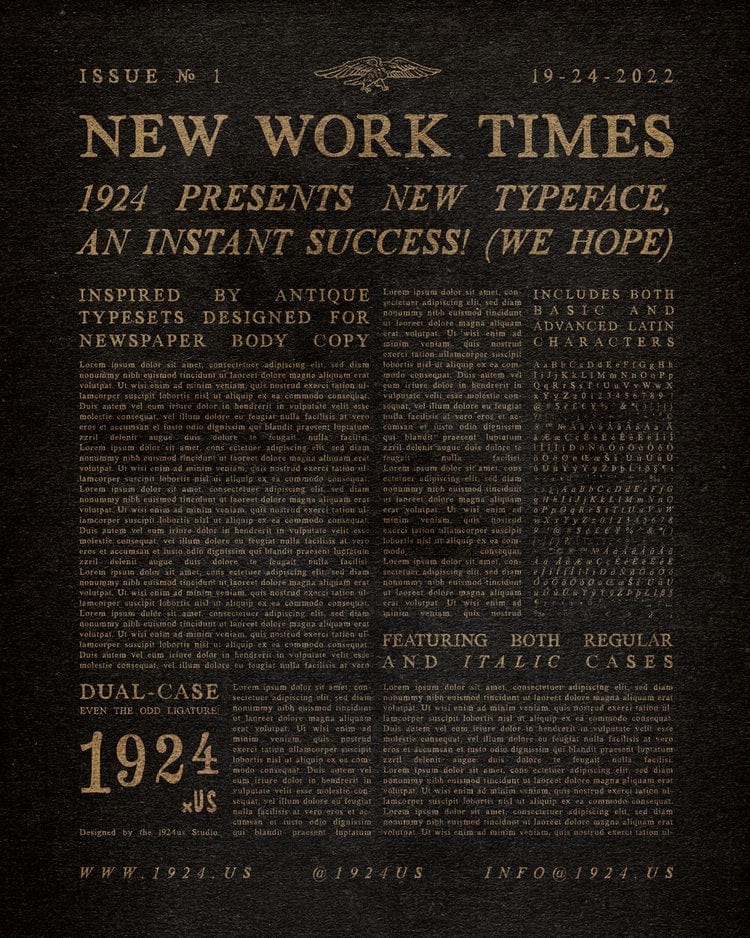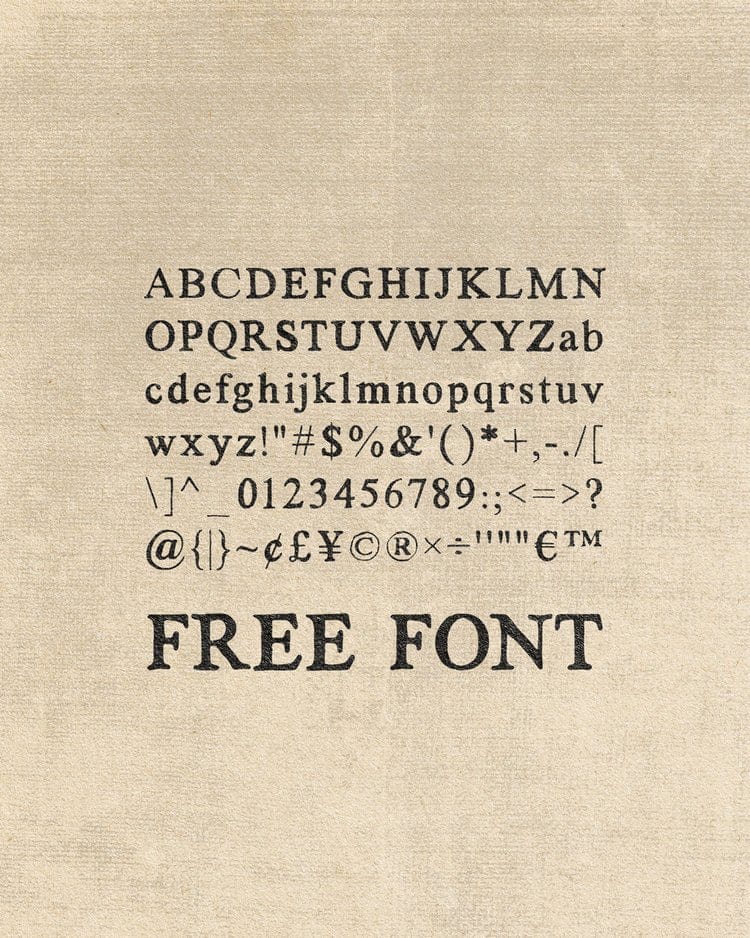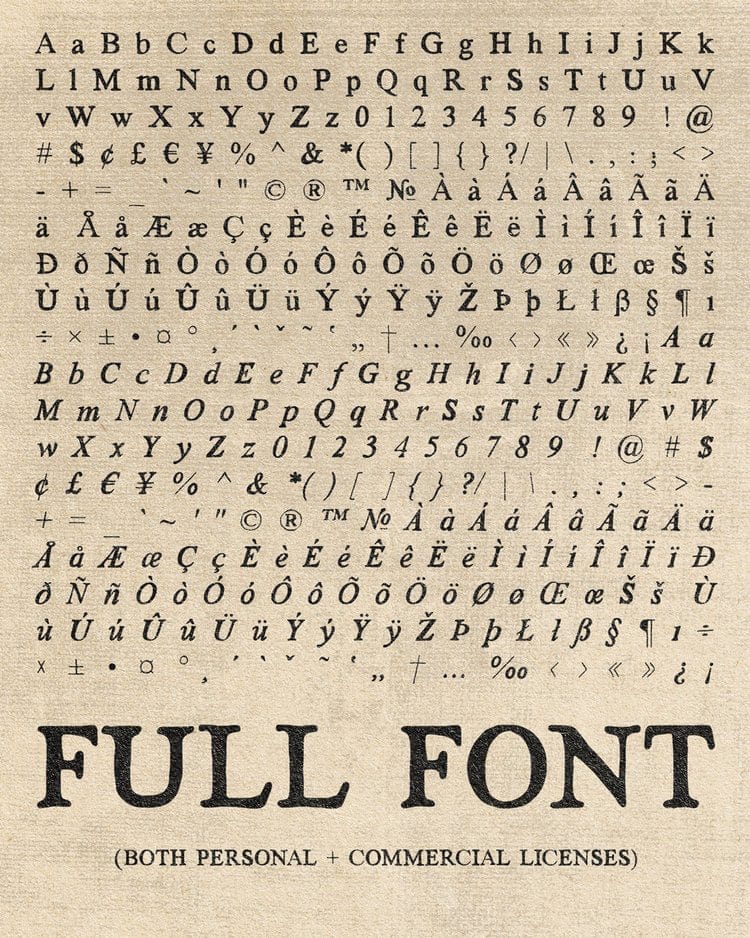
New Work Times font by 1924us
The 1924us Studio is incredibly proud to present New Work Times!!
A traditional dual-case Serif typeface, New Work Times takes inspiration from vintage body-copy typesets employed by old newspapers. With a high x-height and short descenders, the font works great for dense copy and paragraphs, but also has enough nuance and appeal to be employed in headlines and logos too! Use as you see fit and enjoy!!